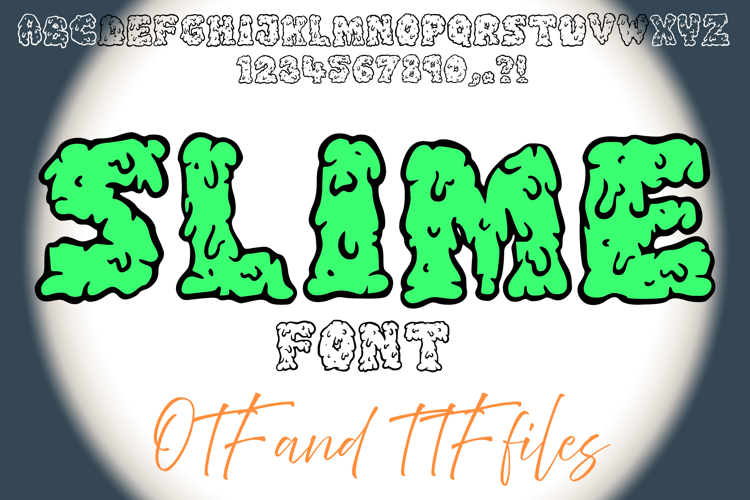
Add a touch of spooky fun to your designs with the "Dripping" font! This bold, unique font features dripping letters, perfect for Halloween, horror themes, or any design needing an edgy, dramatic look. "Dripping" is available in installable OTF and TTF formats, as well as cut files in SVG, PNG, PDF, EPS, and JPG formats, making it versatile for crafting, print, and digital projects. Ideal for t-shirts, posters, invitations, and more, this font will stand out and make an impact.
Dripping